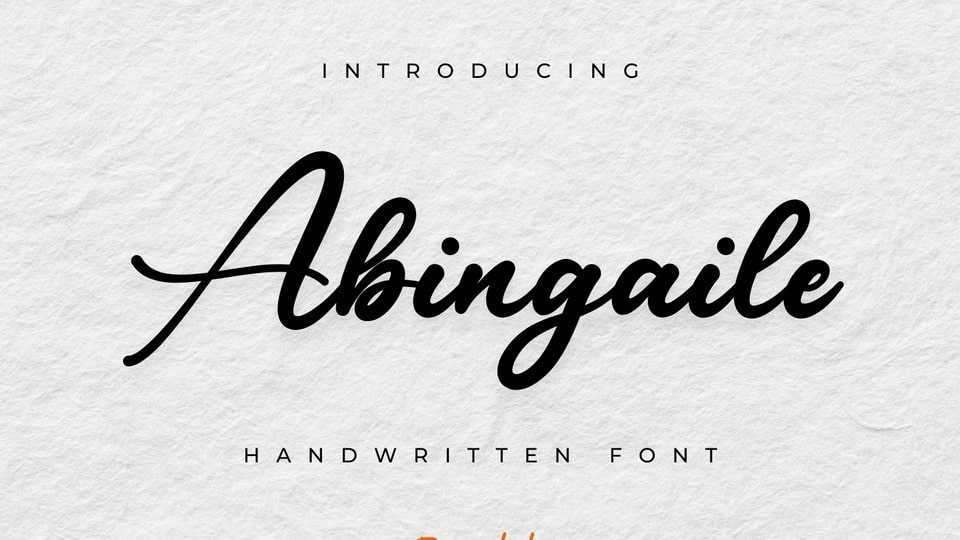
Download Abingaile font, a casual handwritten typeface, made with naturally and organic brush flow, perfect for branding, websites, and editorial designs.